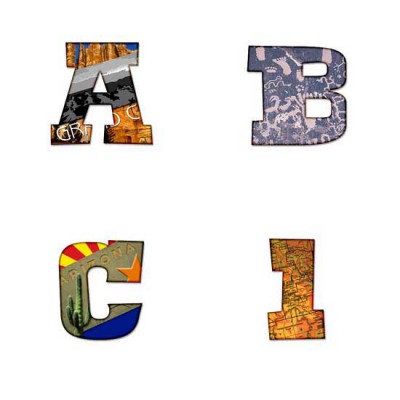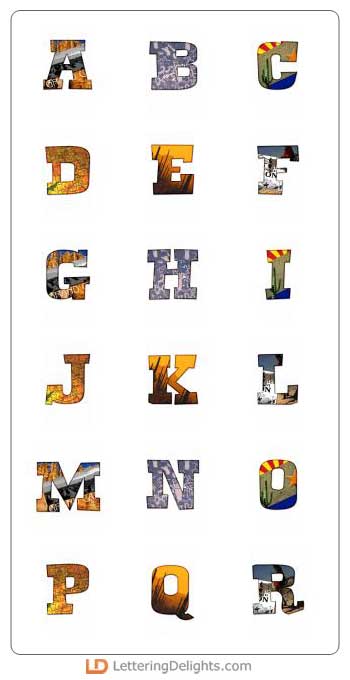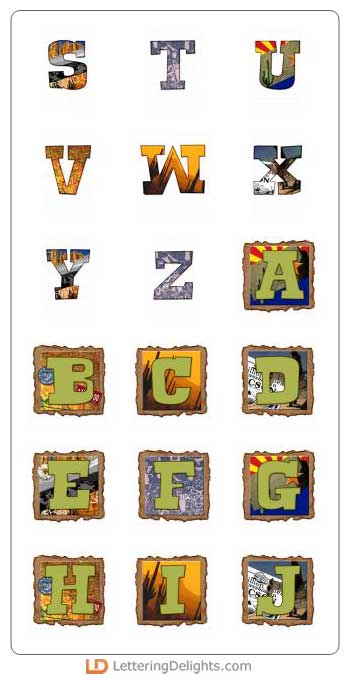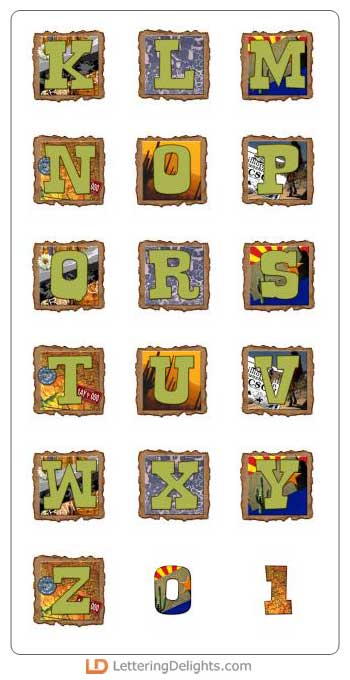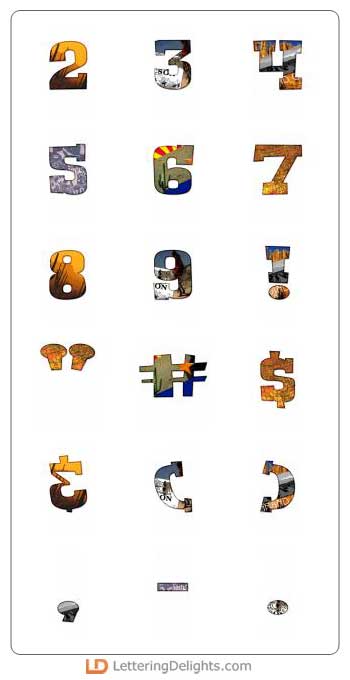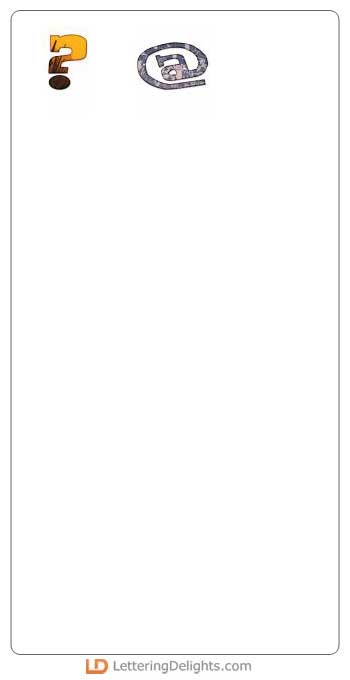
This alphabet will take you out west to the desert state of Arizona. Use these letters to make titles on Grand Canyon scrapbook pages or western greeting cards. You can personalize just about anything with a "hot" Arizona theme.